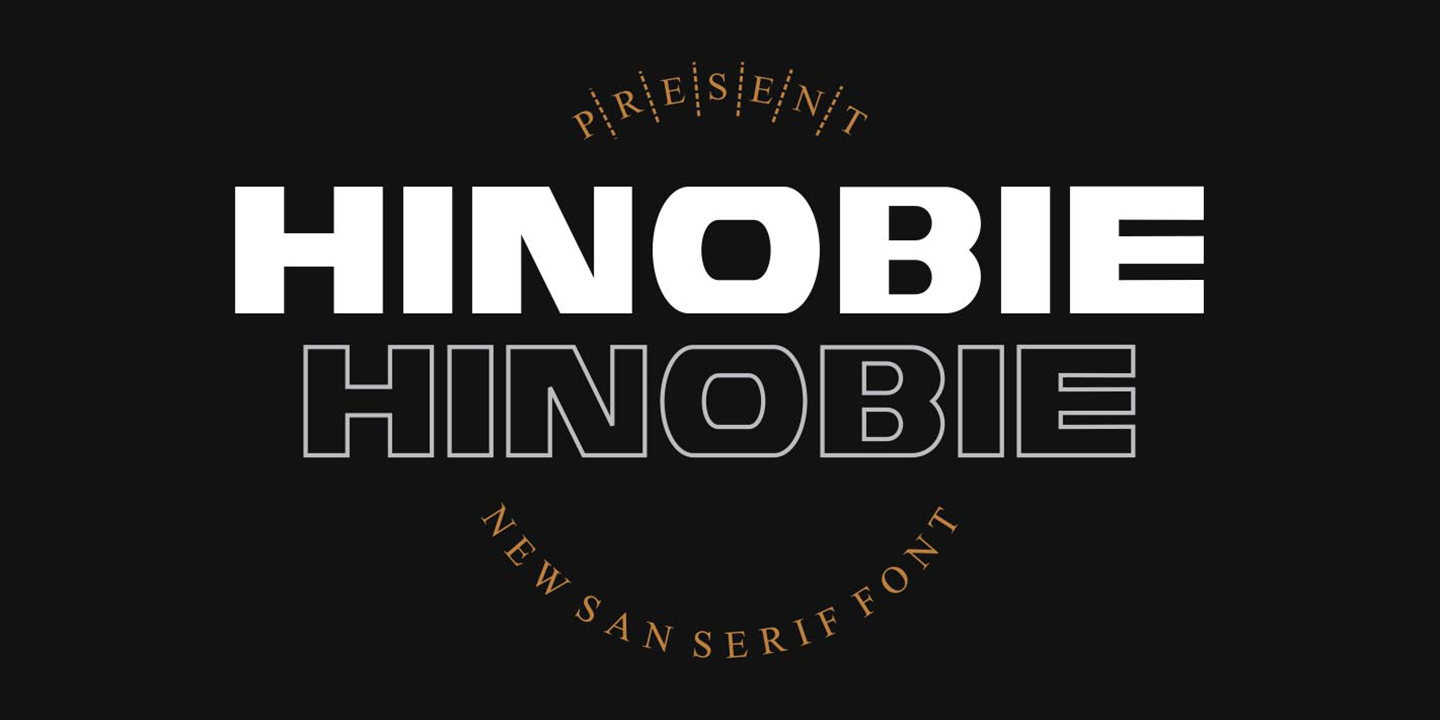
Hinobie Free Download
Hinobie Font Free Download
Hinobie Font is perfect for anime gaming logos, manga title designs, Japanese restaurant branding, kawaii product packaging, Asian entertainment posters, tech startup identities, contemporary art exhibitions, minimalist fashion labels, modern mobile app interfaces, and creative digital content. This distinctive typeface brings Japanese-inspired elegance and contemporary charm to projects requiring cultural sophistication and modern appeal.
What makes Hinobie Font exciting is its beautiful fusion of traditional Japanese aesthetic principles with cutting-edge contemporary design that creates a unique visual language for modern global communication. The font features clean, harmonious letterforms with subtle geometric influences that reflect the minimalist beauty and thoughtful craftsmanship found in Japanese design culture. Its balanced character construction embodies the principles of simplicity and elegance while maintaining exceptional readability across diverse applications, making it perfect for brands seeking to convey refinement, innovation, and cultural appreciation.
The Hinobie Font family includes multiple stylistic variations such as Regular, Light, Medium, Bold, and Condensed versions, along with complementary Rounded and Display styles. Each weight maintains the font's distinctive Japanese-inspired character while providing comprehensive design flexibility for multicultural branding systems and contemporary design applications.
Whether you're developing culturally-inspired brand identities, creating modern entertainment marketing materials, or designing contemporary digital interfaces, Hinobie Font Free Download provides the sophisticated typography needed for elegant cross-cultural communication. This font seamlessly combines Eastern aesthetic wisdom with Western design functionality, making it an exceptional choice for projects requiring both cultural sensitivity and modern appeal. Its meticulously balanced letterforms ensure outstanding performance across digital platforms, print materials, and international applications where cultural appreciation meets contemporary design excellence.